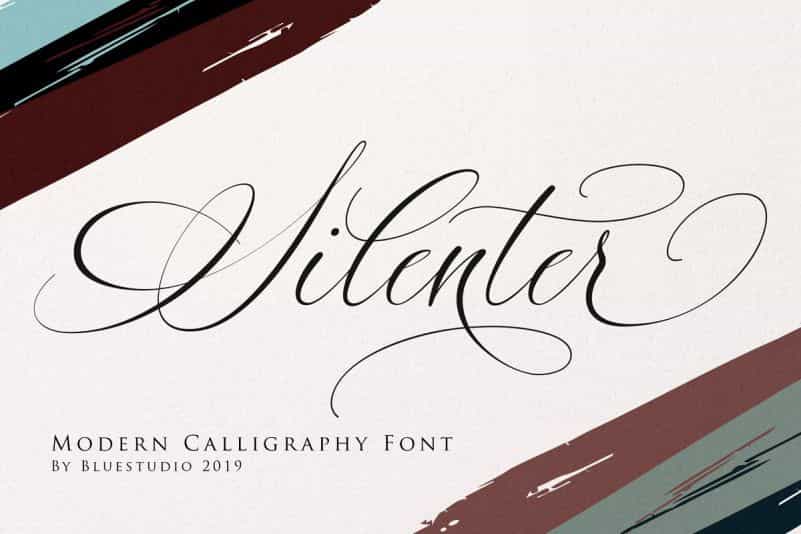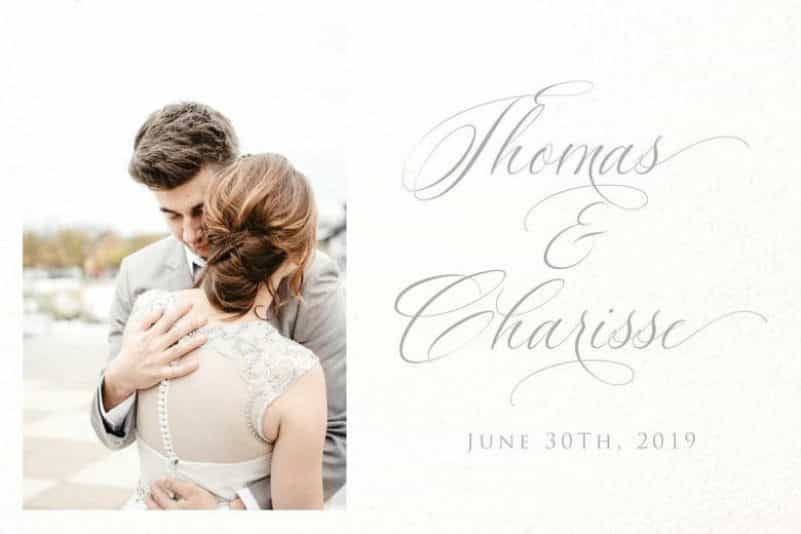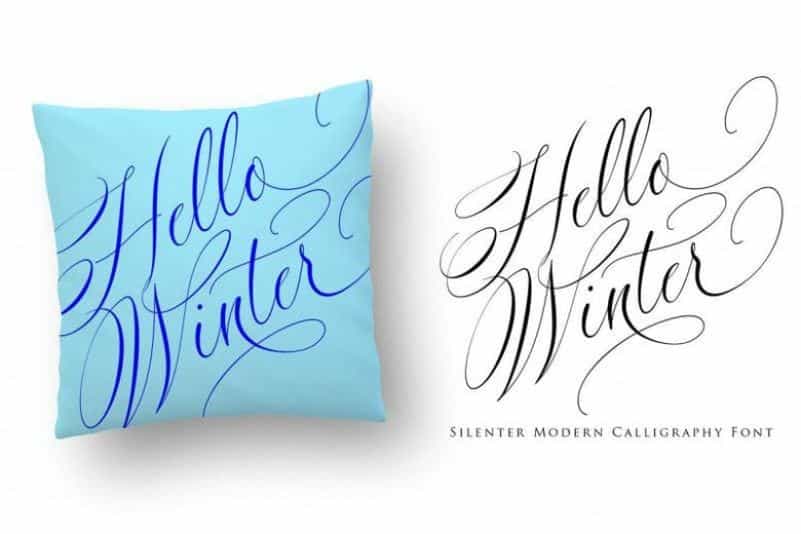
Introducing Silenter – a new romantic calligraphy font. This font is perfect for branding or decorate your any project, are perfect for wedding invitation or your blog. Silenter is suitable for all your design project needs such as logos, branding, covers, posters, magazines, wedding invitations, greeting cards, quotes, and more.